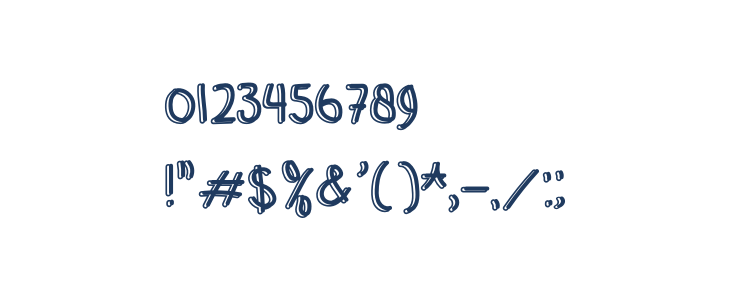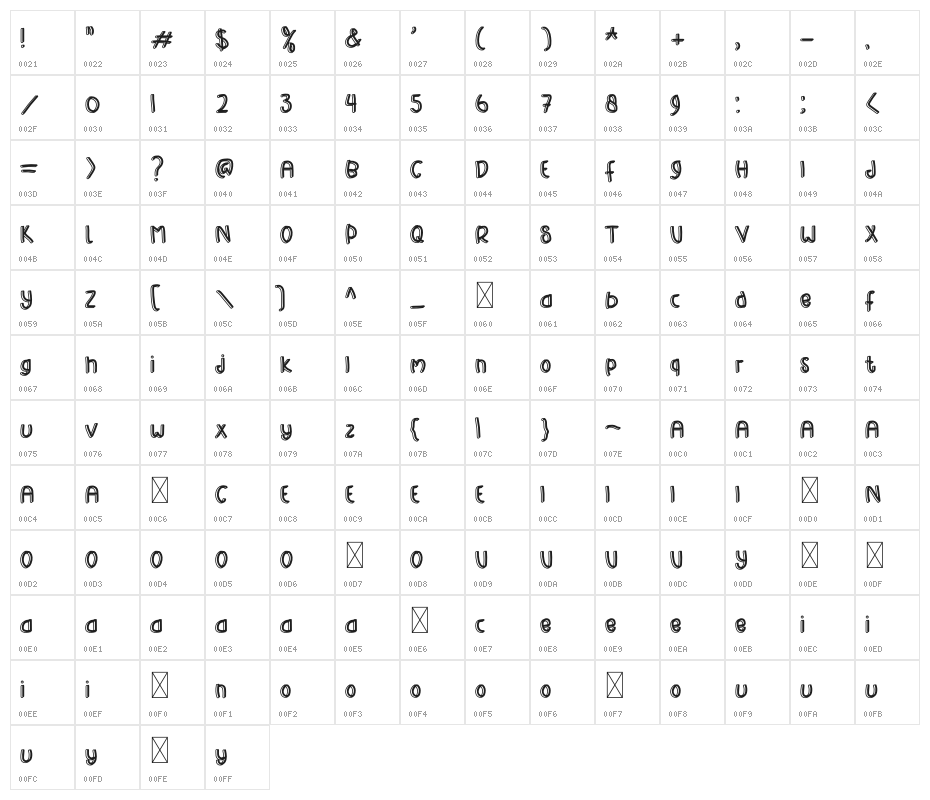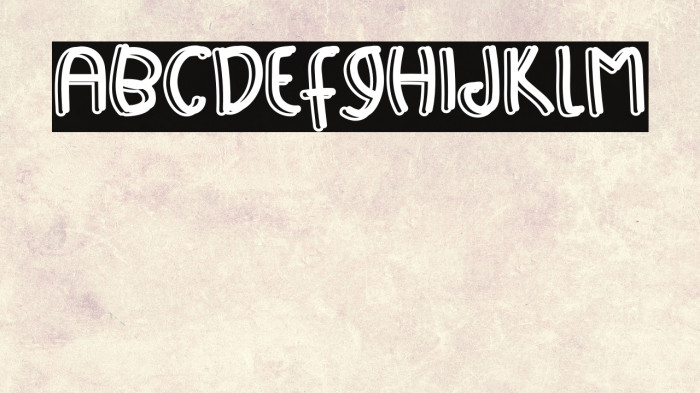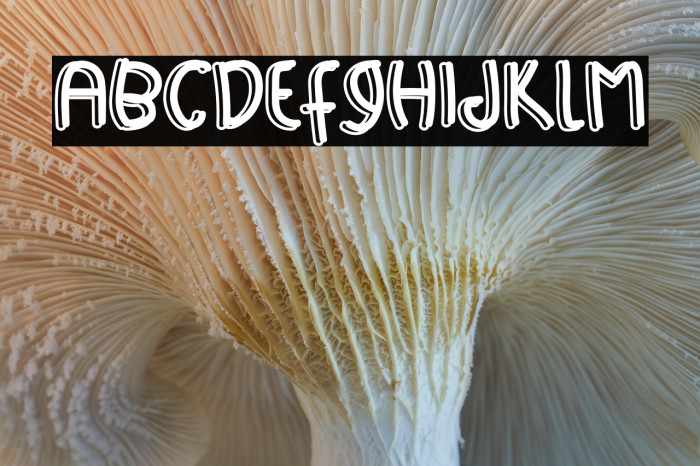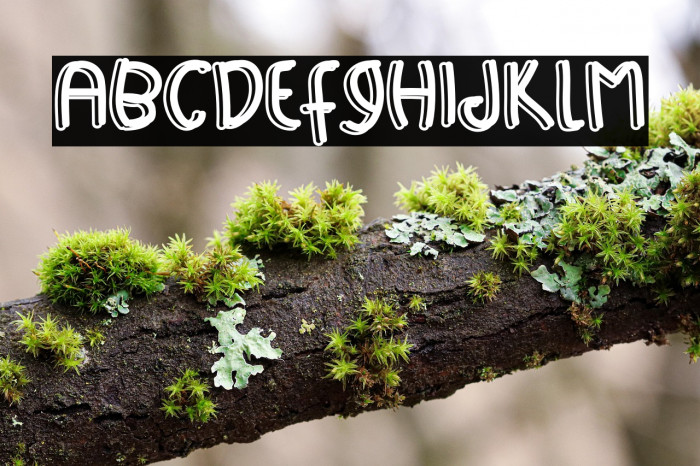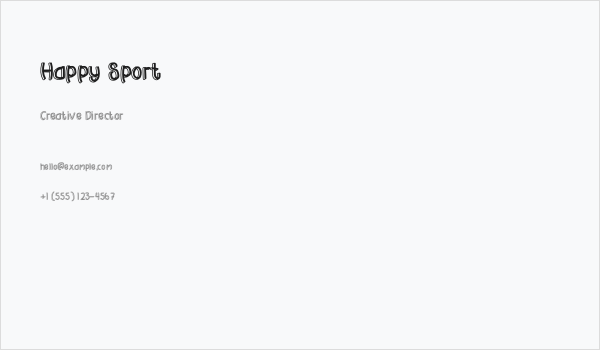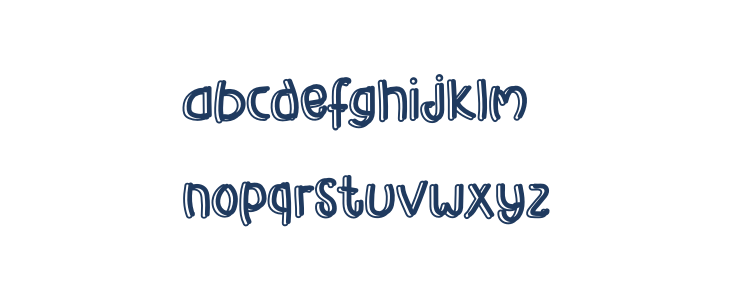
Happy Sport Font
Happy Sport Description
This playful and energetic font features bold, rounded characters with a hand-drawn appearance. The letters are outlined, giving them a distinctive, cartoon-like style that is both fun and approachable. The uppercase and lowercase letters maintain a consistent style, with slightly exaggerated curves and a casual, informal feel. Numbers and special characters are designed to match the whimsical aesthetic, making this font suitable for creative and lighthearted projects.
| Proposed Projects | Ideal for children's books, playful branding, party invitations, and casual social media graphics. |